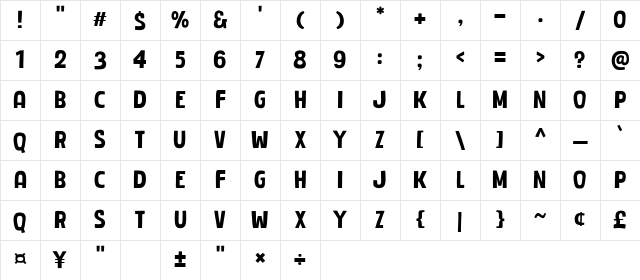
Tak Cubit Regular Free Font
Tak Cubit Regular
Foundry: Khurasan
Designer: Khurasan
Design Context for Tak Cubit
Tak Cubit is a composed and adaptable typeface that performs quietly and consistently across a wide range of design contexts.